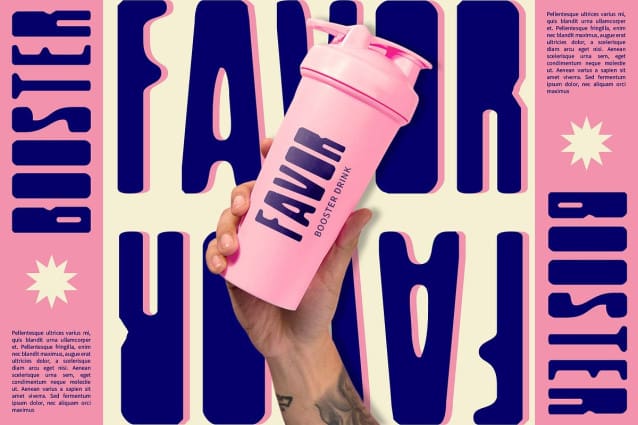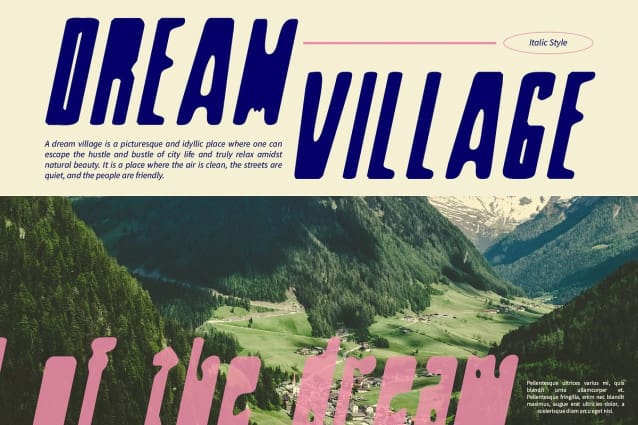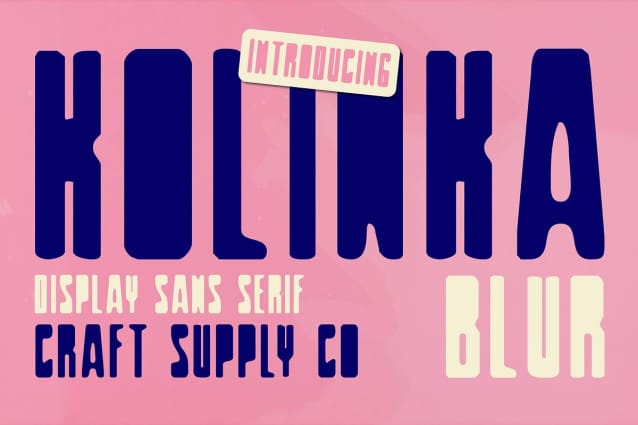
Kolinka Blur Font
Kolinka Blur Font is a font with bold condensed forms, a retro vibe, and a blur effect, perfect for eye-catching displays. Its bold design and blurred details create a unique and dynamic look, ideal for posters, branding, and other projects that require a bold and nostalgic style.
With its strong lines and tight spacing, Kolinka Blur offers a fresh take on sans serif fonts. The bold and condensed forms, combined with the retro-inspired design and blur effect, create a dynamic and captivating look, perfect for designs that demand attention and convey a sense of nostalgia and style.
Whether you’re designing a retro-themed advertisement or creating a classic movie poster, Kolinka Blur is sure to make an impression. Its bold design, condensed forms, and retro vibe make it perfect for displays that need a touch of vintage flair and modern appeal.
Despite its distinctive appearance, Kolinka Blur is versatile and easy to use. The font works well in both large and small sizes, making it suitable for a variety of applications, from headlines and banners to body text and more. With its blend of bold design, condensed forms, retro vibe, and blur effect, Kolinka Blur adds a unique and nostalgic element to any design.